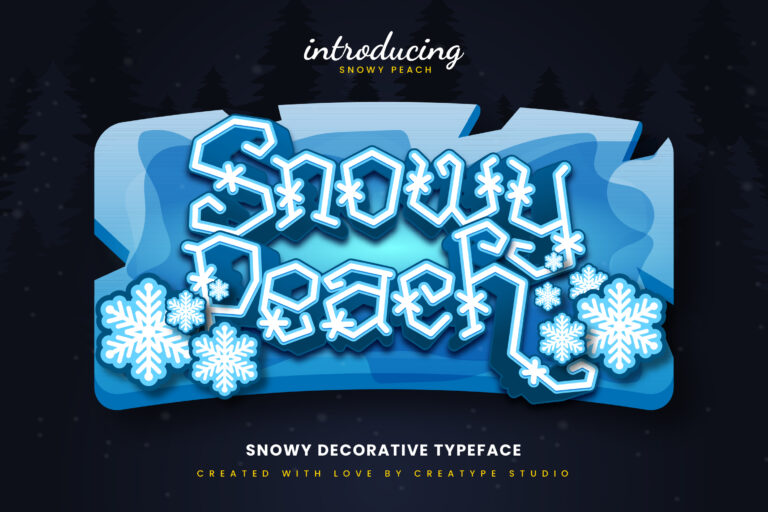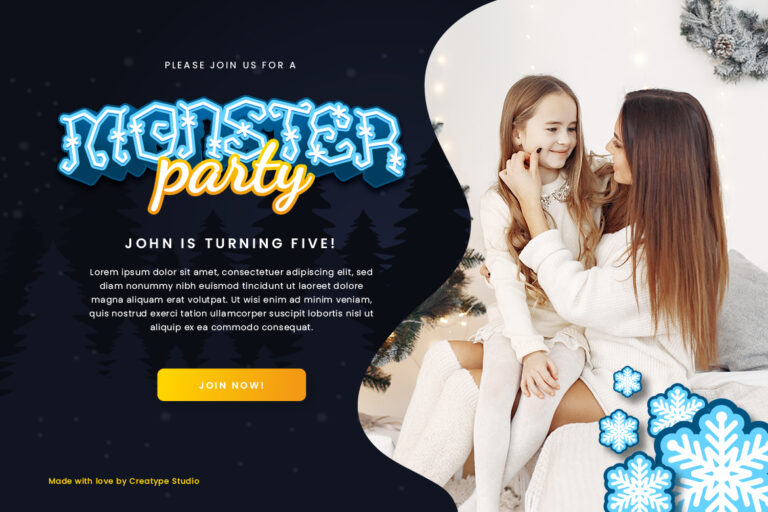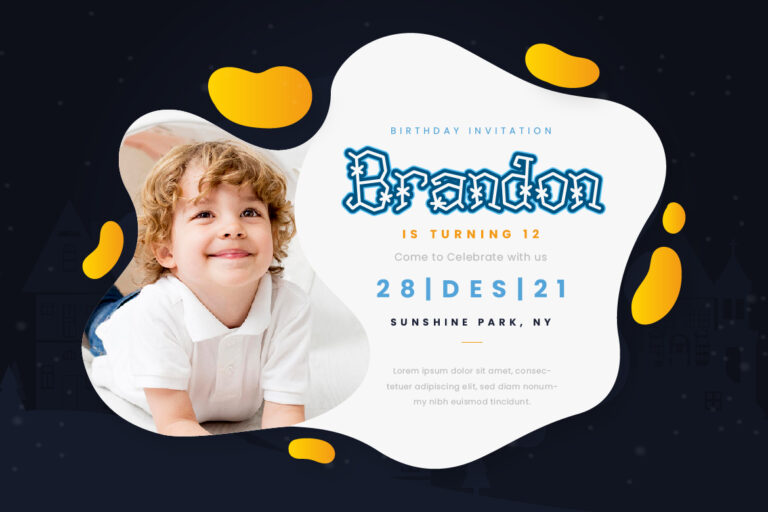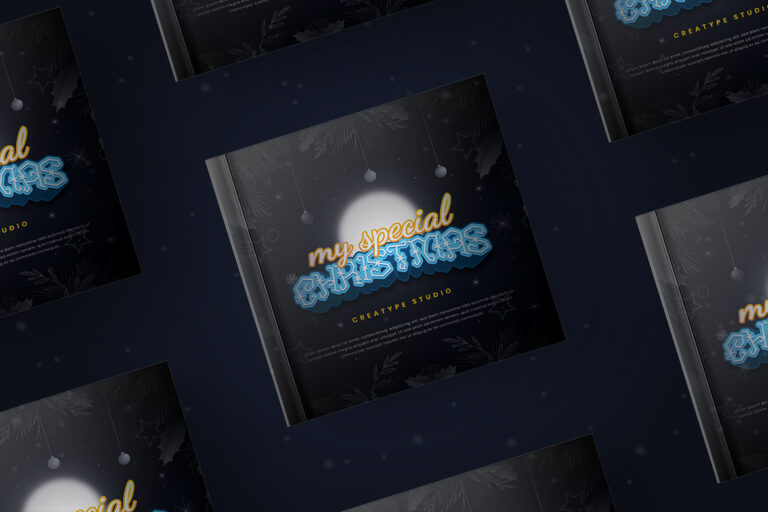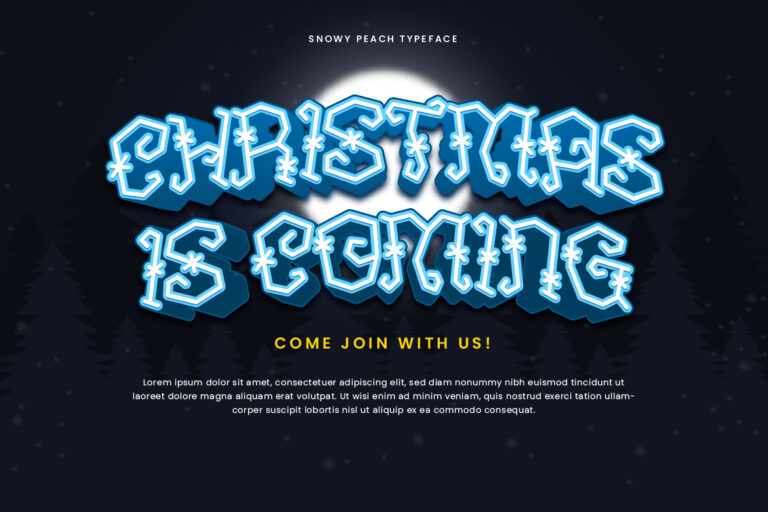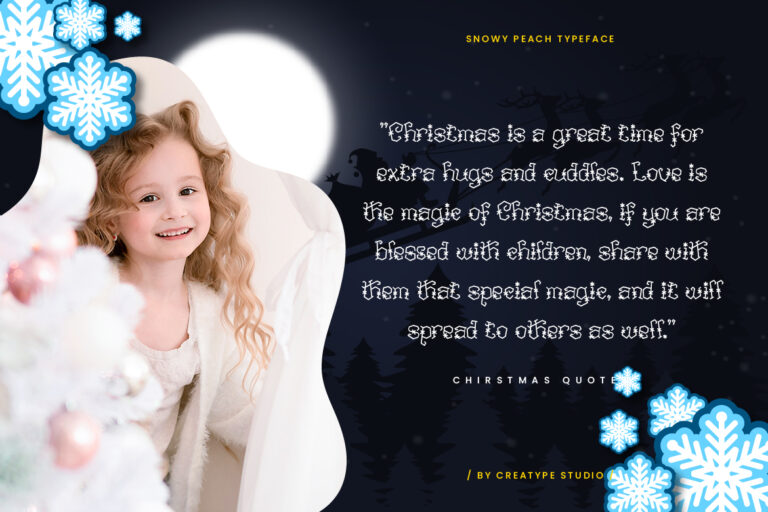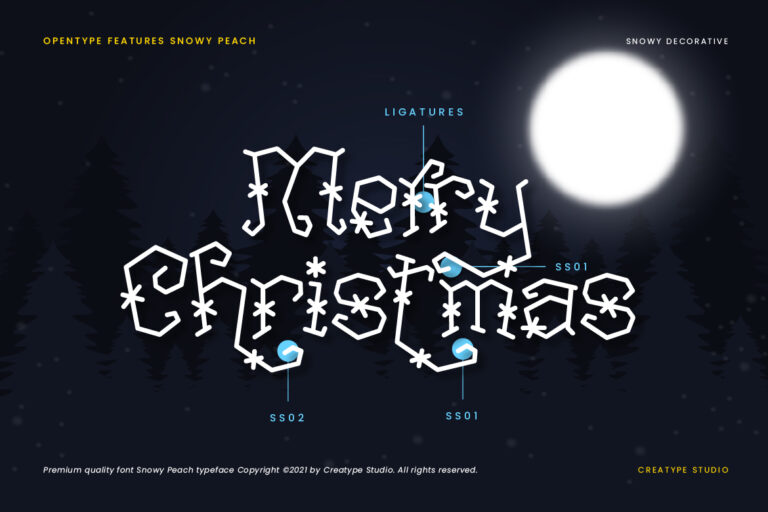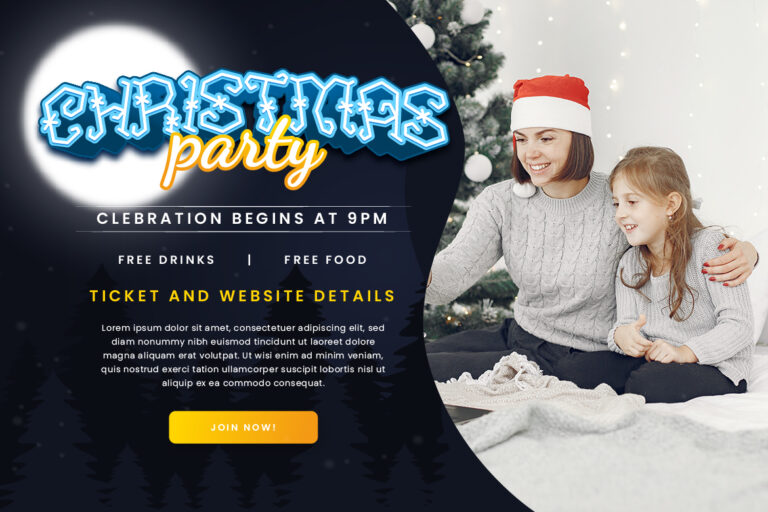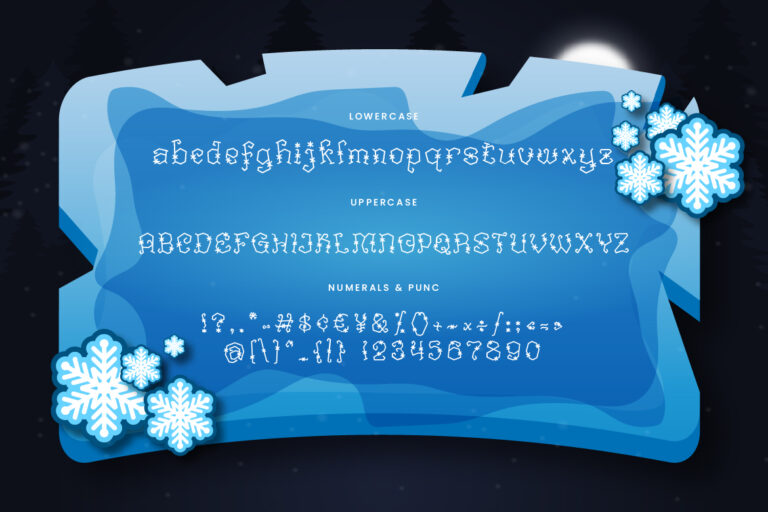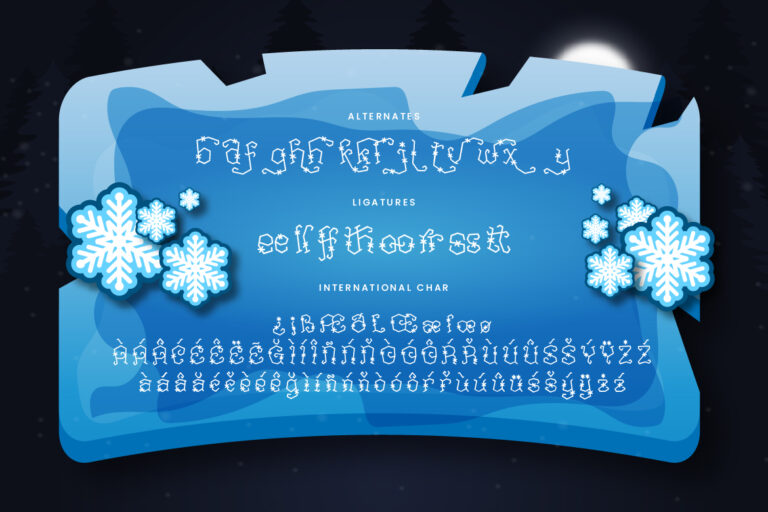
Snowy Peach Christmas Decorative
Snowy Peach is a snowy decorative typeface that is specially made to produce a unique font shape. This font is very suitable for those of you who want your product to look different from the others
Snowy Peach is perfect for branding projects, logo, wedding designs, social media posts, advertisements, product packaging, product designs, label, photography, watermark, invitation, stationery and any projects that need handwriting taste.